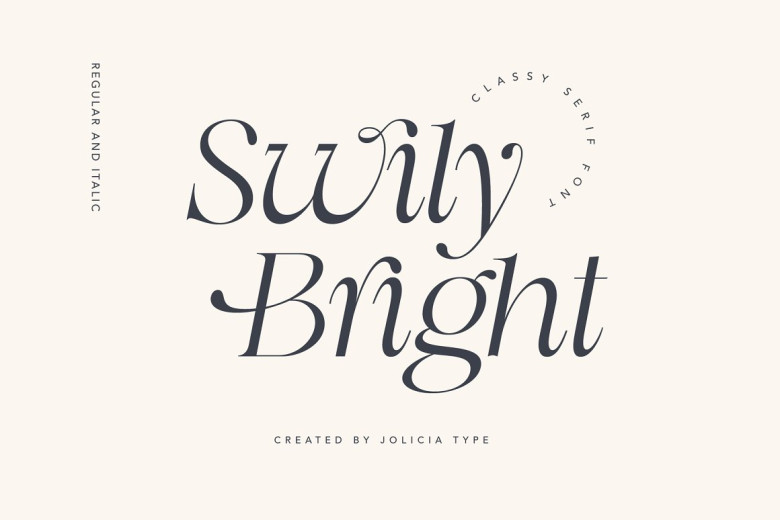
Swily Bright Font
Swily Bright is a modern, trendy Serif font designed by Jolicia Type that marries calligraphy serif font with Serif font, perfect for branding projects in modern, trendy settings. Available with Regular and Italic versions to create personalized letters with alternates/ligatures also provided for you to add elegance, class and sophistication.
Swily Bright Serif Font